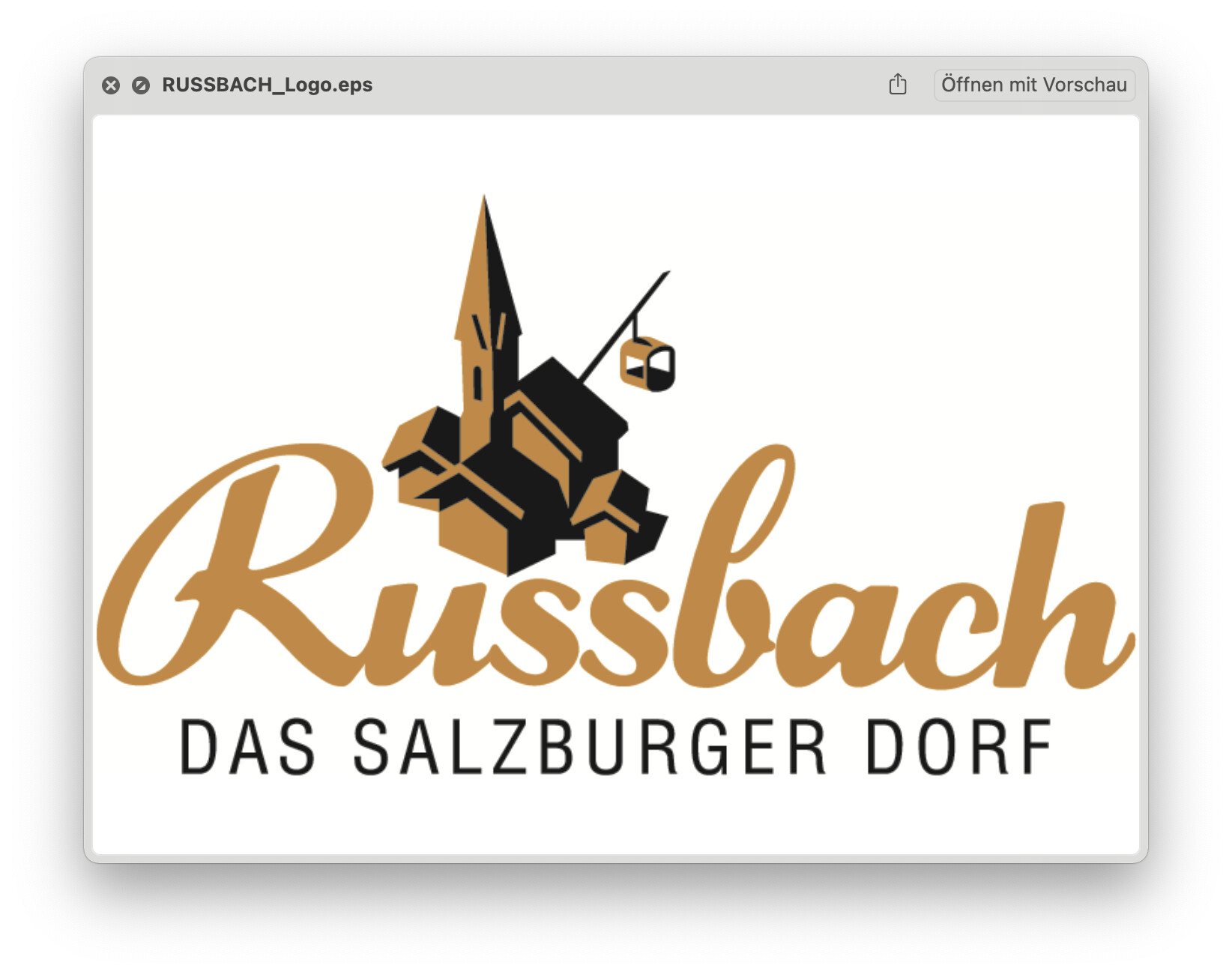
It’s very similar to Jaunty Gent by Nick’s Fonts, but it’s slightly compressed and the b has been altered (the b in the logo has a loop).
Helvetica Condensed (not Narrow).